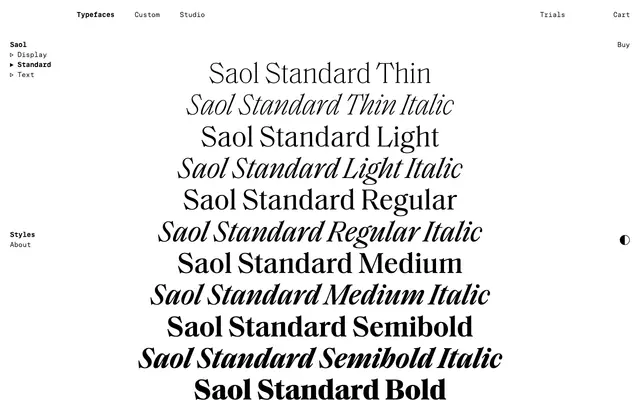
Saol Standard
Saol's middle optical size: a Victorian old-style serif for medium sizes, between the delicate Display and sturdier Text.
Saol Standard is the medium-size cut of the Saol family. The foundry describe it as intended for medium size use, sitting between Saol Display's delicate hairlines and Saol Text's modest contrast and sturdier build. Six weights from Thin to Bold with matching italics carry the family's exaggerated Victorian terminals, taut shoulders and flamboyant swash italic at this scale, useful for subheads, intros, pull quotes and decks where the Display would be too delicate.
The middle optical size of Saol; the foundry describe it as intended for medium-size use, between the delicate Display and the sturdier Text.